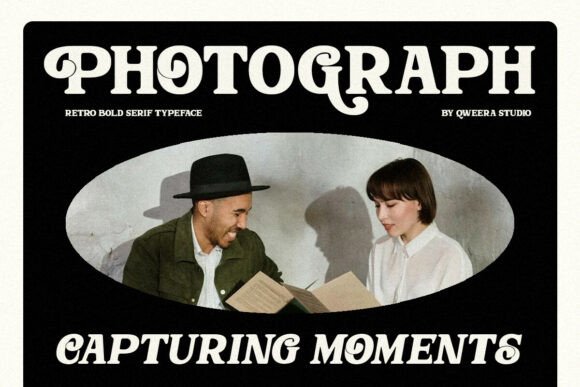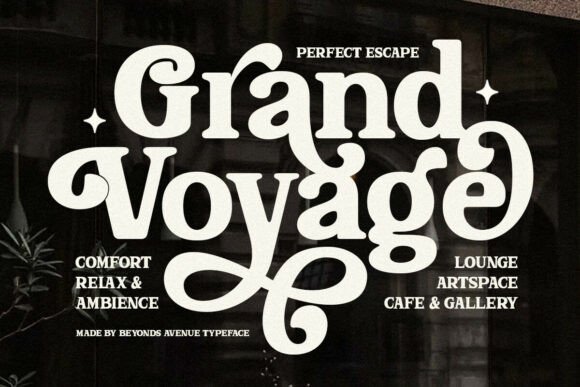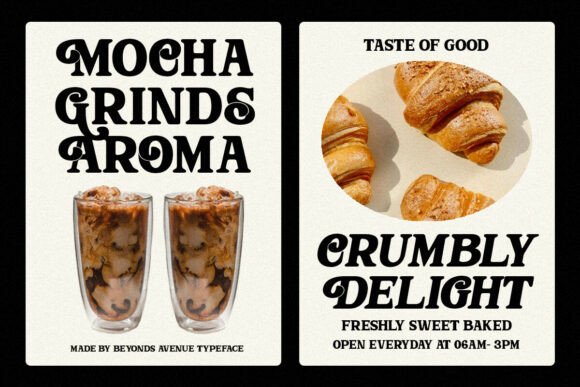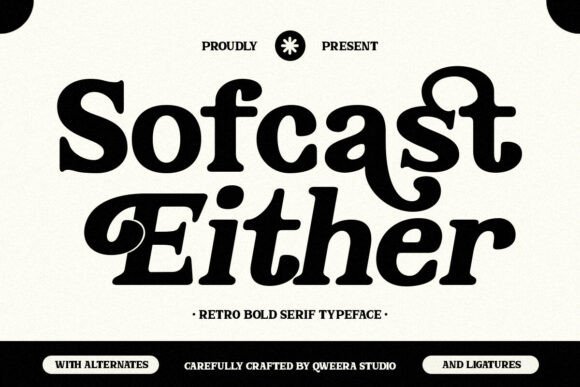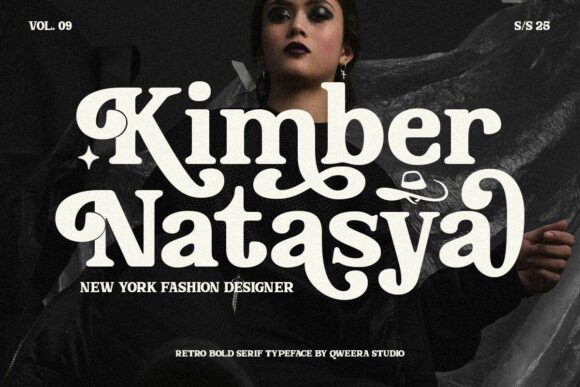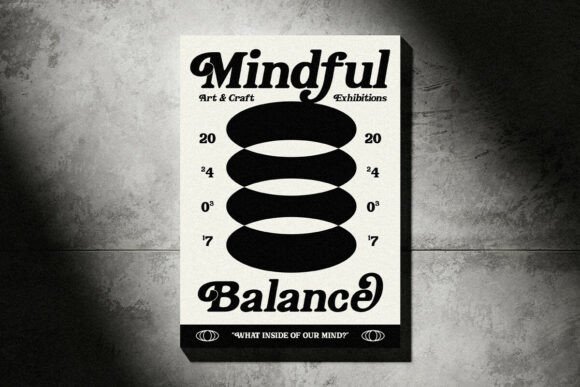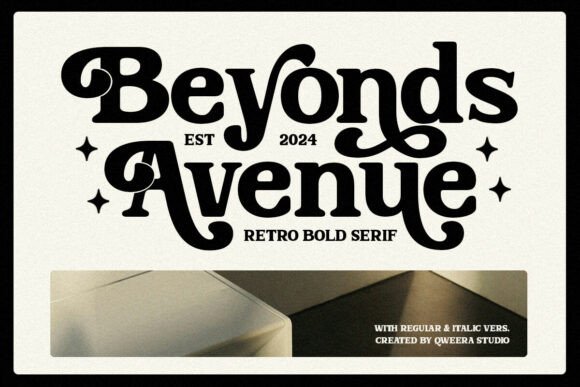
Beyonds Avenue – A Stylish and Versatile Retro Bold Serif Font
In the world of typography, fonts play a crucial role in conveying messages, expressing emotions, and creating a lasting impression. For designers and crafters, finding the right font can be a daunting task, especially when looking for something that combines classic and modern characteristics. This is where Beyonds Avenue comes into play – a retro bold serif font that is about to revolutionize your design game.
The Essence of Beyonds Avenue
Beyonds Avenue is not just another font; it’s an experience. Designed to deliver a strong and bold impression, this font seamlessly blends classic and modern elements with a cool touch. The result is a stylish and versatile typeface that can elevate any design project. Whether you’re working on posters, magazines, branding, or other print designs, Beyonds Avenue is the perfect companion to bring your creative visions to life.
Key Features of Beyonds Avenue
- Retro Bold Serif Style: Beyonds Avenue boasts a bold serif style that exudes elegance and sophistication. Its retro vibe adds a nostalgic feel to your designs, making them stand out in a crowded digital landscape.
- Stylish Alternates and Ligatures: What sets Beyonds Avenue apart is its inclusion of stylish alternates and ligatures. These features allow users to create unique and customized designs with ease, adding a personal touch to their work.
- High Flexibility: The font’s versatility is one of its strongest assets. Beyonds Avenue can be used across various design projects, from print materials like posters and magazines to digital applications.
- Elegant Retro Vibes: With Beyonds Avenue, bringing elegant retro vibes to your creations has never been easier. The font’s classic yet modern design ensures that your work looks contemporary and appealing.
For designers and crafters, the quest for the perfect font is ongoing. Beyonds Avenue checks all the boxes – it’s stylish, versatile, and easy to use. The font’s bold appearance makes it ideal for headlines, titles, and any design element where you want to make a statement. Moreover, its elegant retro style ensures that your work stands out with a unique charm.
Unleash Your Design Potential
Creativity knows no bounds with Beyonds Avenue. This font is crafted to inspire limitless creativity, allowing designers to push the boundaries of their imagination. Whether you’re a professional designer or a DIY enthusiast, Beyonds Avenue provides the tools you need to create stunning designs that leave a lasting impression.
Why Choose Beyonds Avenue?
- Unique Designs: With stylish alternates and ligatures, you can create one-of-a-kind designs that reflect your personal style.
- Time-Saving: The font’s versatility and ease of use save you time, allowing you to focus on the creative aspect of your projects.
- Professional Look: Achieve a professional look with minimal effort. Beyonds Avenue’s bold and elegant design ensures that your work looks polished and high-end.
| Author | Qweera Studio |
Beyonds Avenue is more than just a font – it’s a design experience. Its combination of classic and modern characteristics, along with its stylish alternates and ligatures, makes it a versatile and stylish choice for any design project. Whether you’re looking to create posters, magazines, branding, or any other print designs, Beyonds Avenue is the ideal choice. Unleash your design potential and make Beyonds Avenue the centerpiece of your creations to achieve stunning results that leave a lasting impression.
Don’t settle for ordinary designs. With Beyonds Avenue, you have the power to create something extraordinary. So why wait? Dive into the world of limitless creativity with Beyonds Avenue – your ultimate retro bold serif font companion.